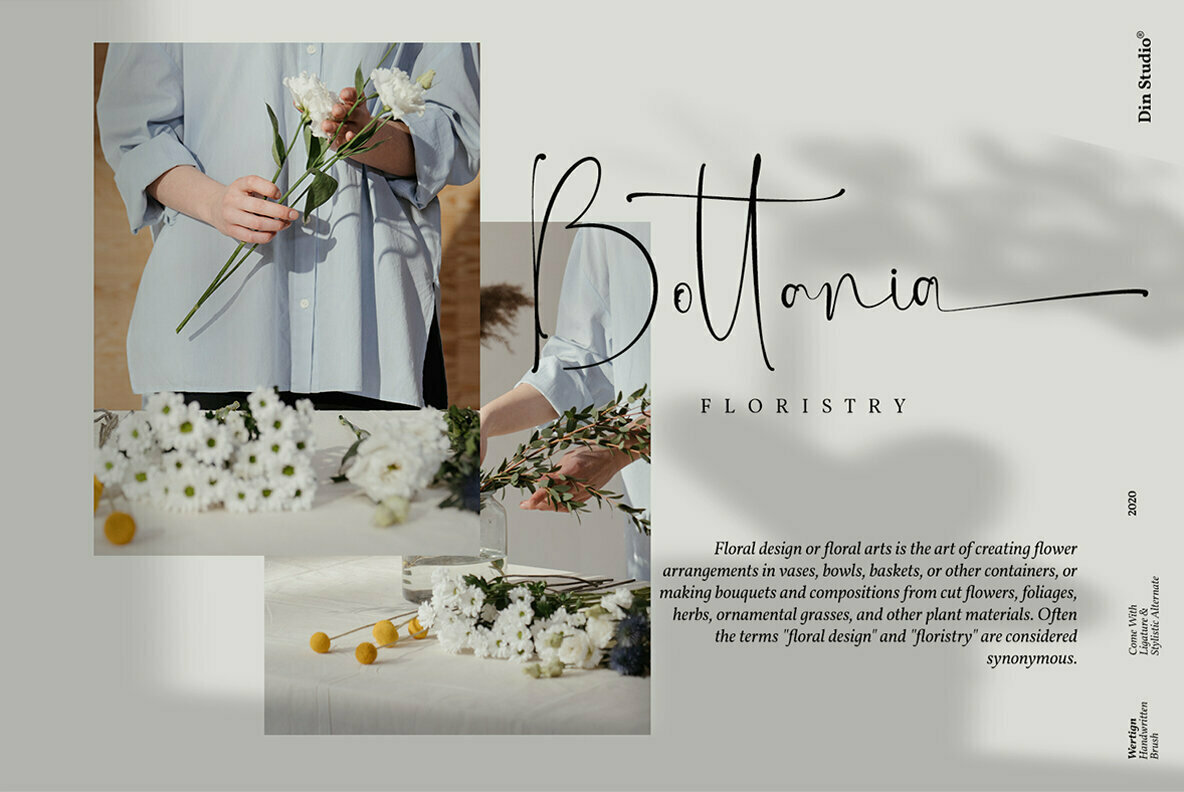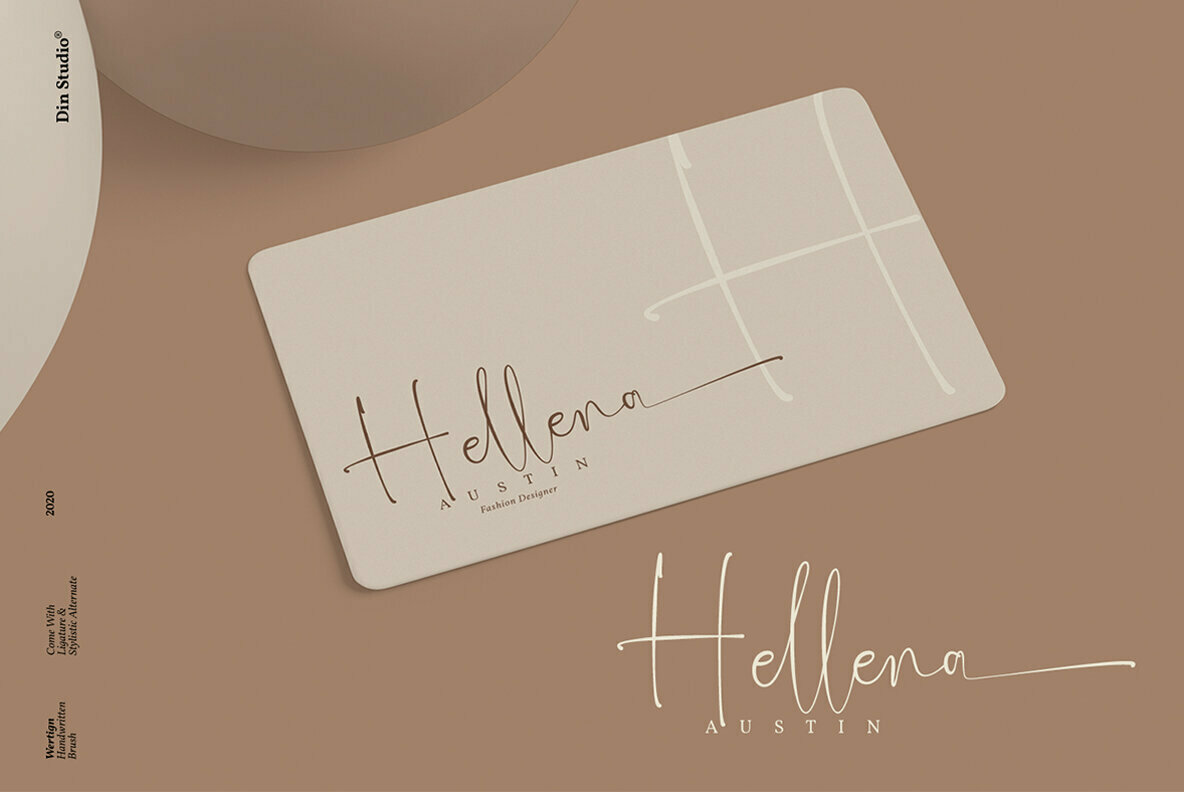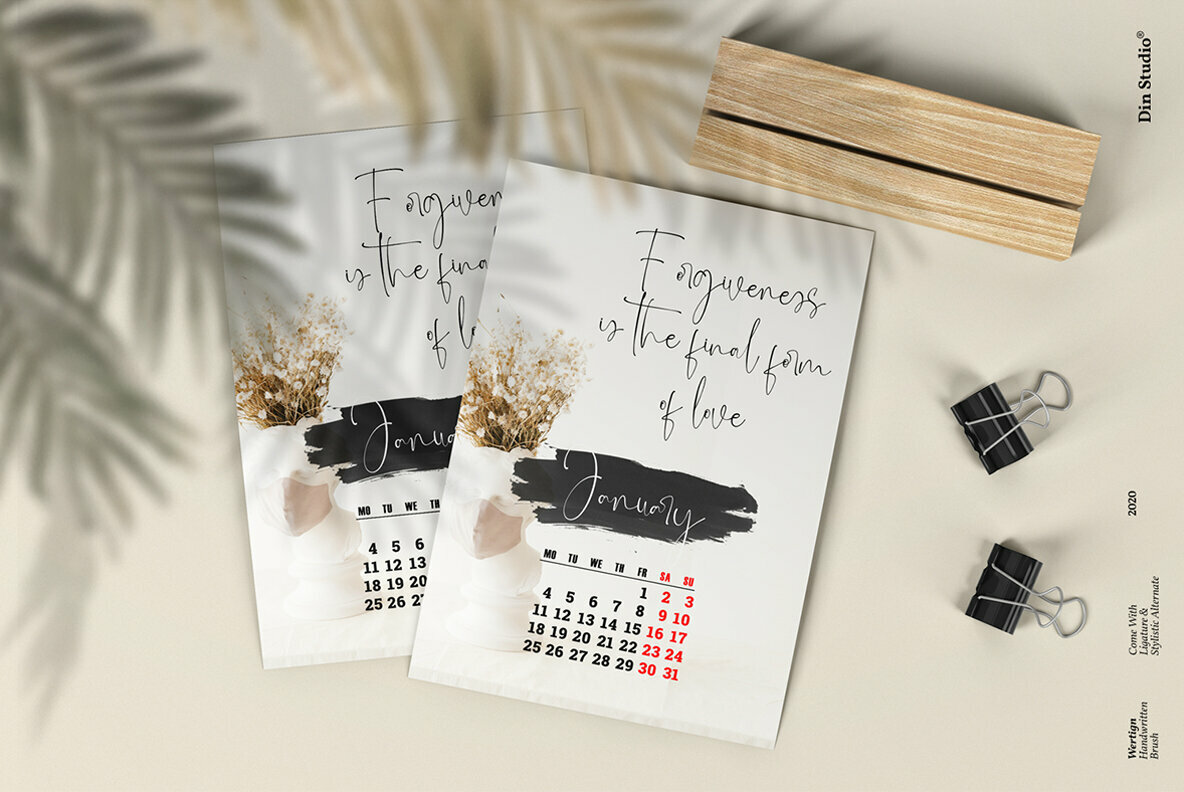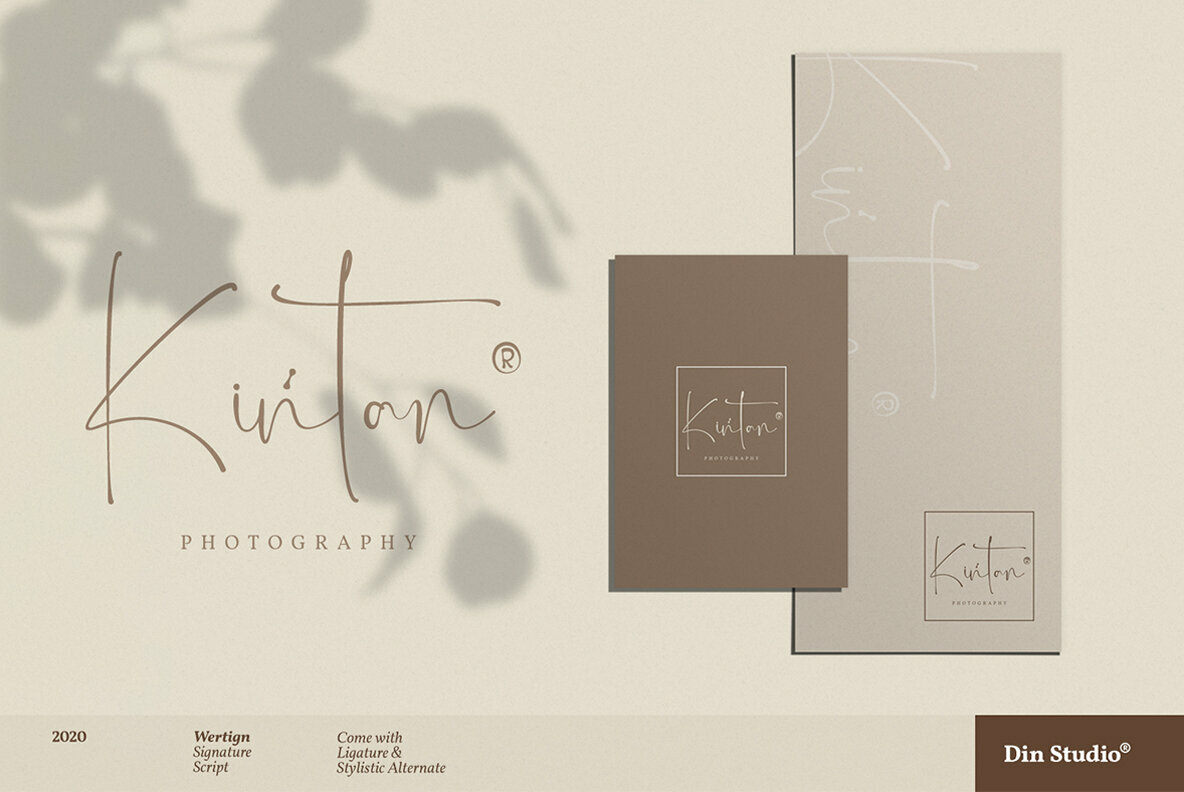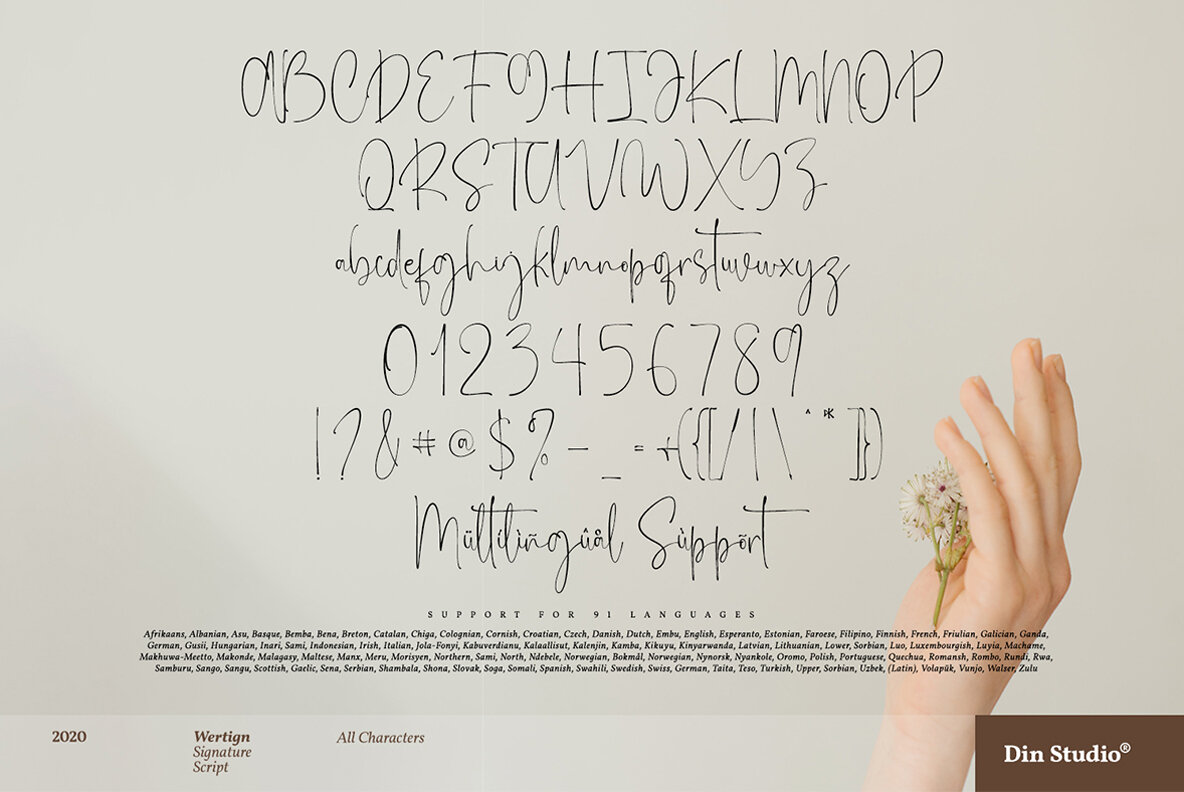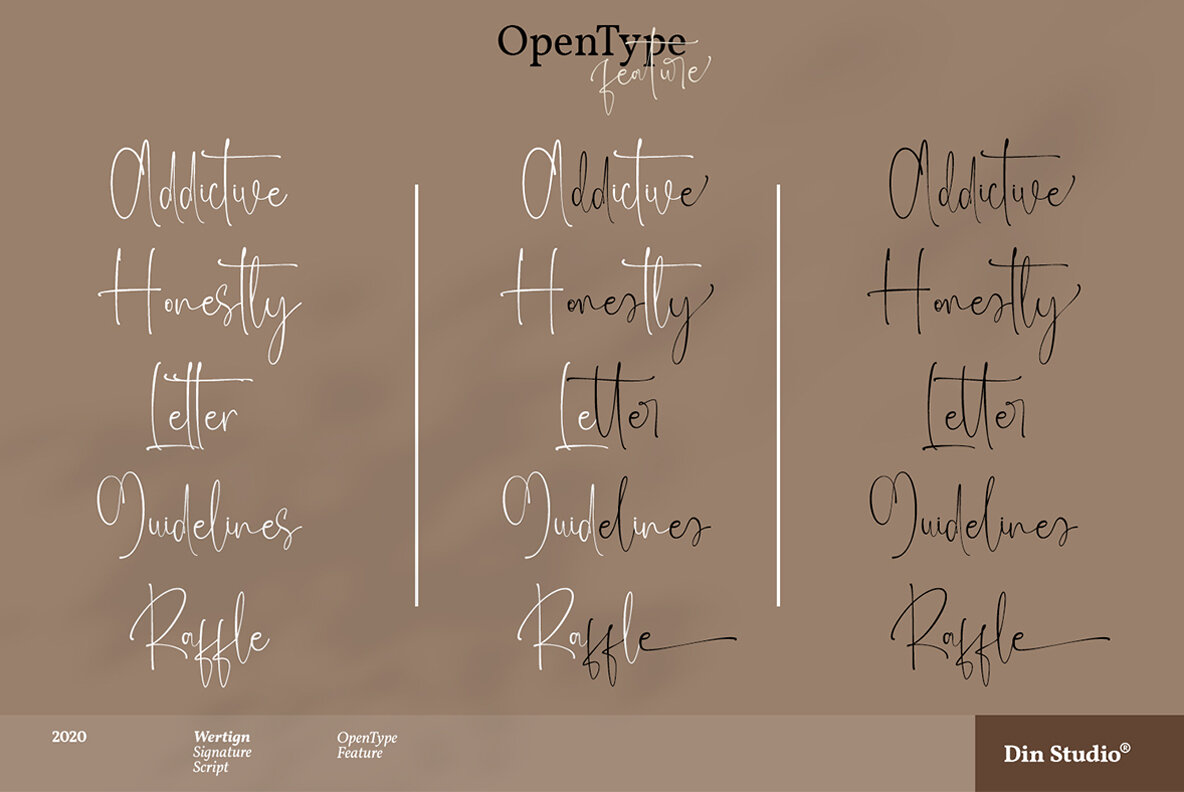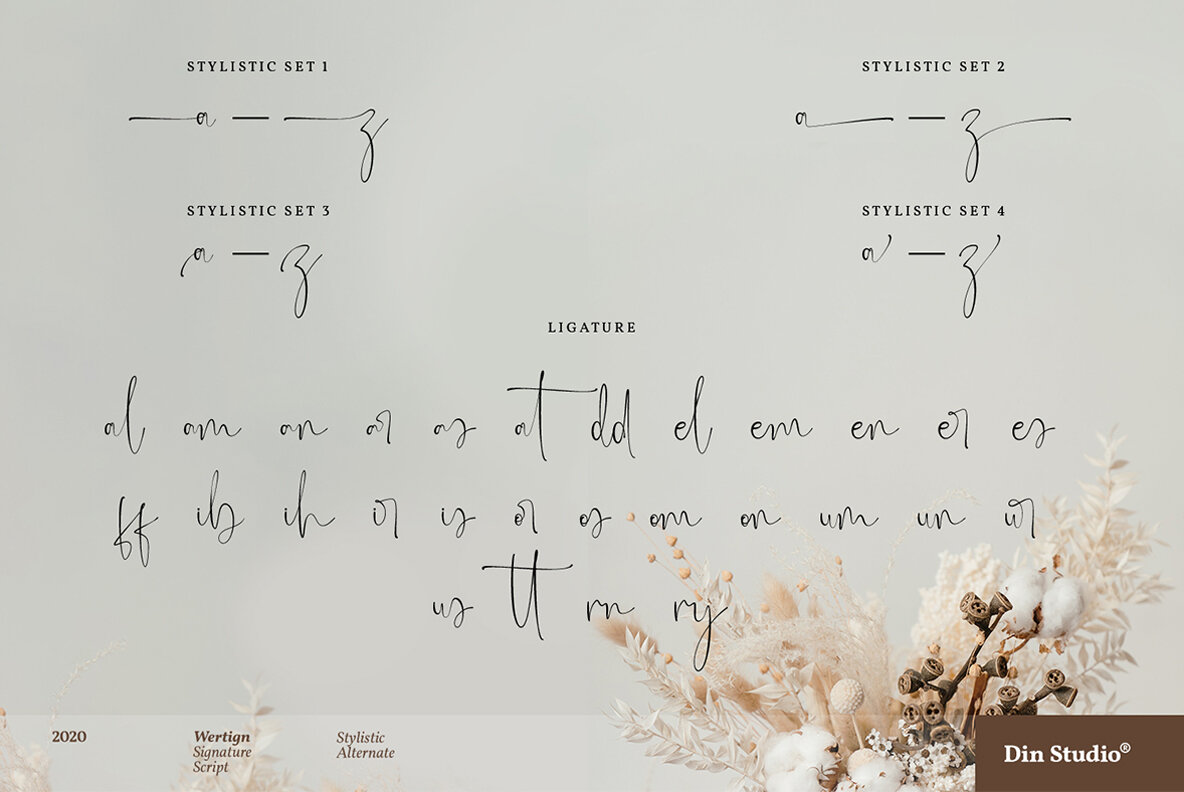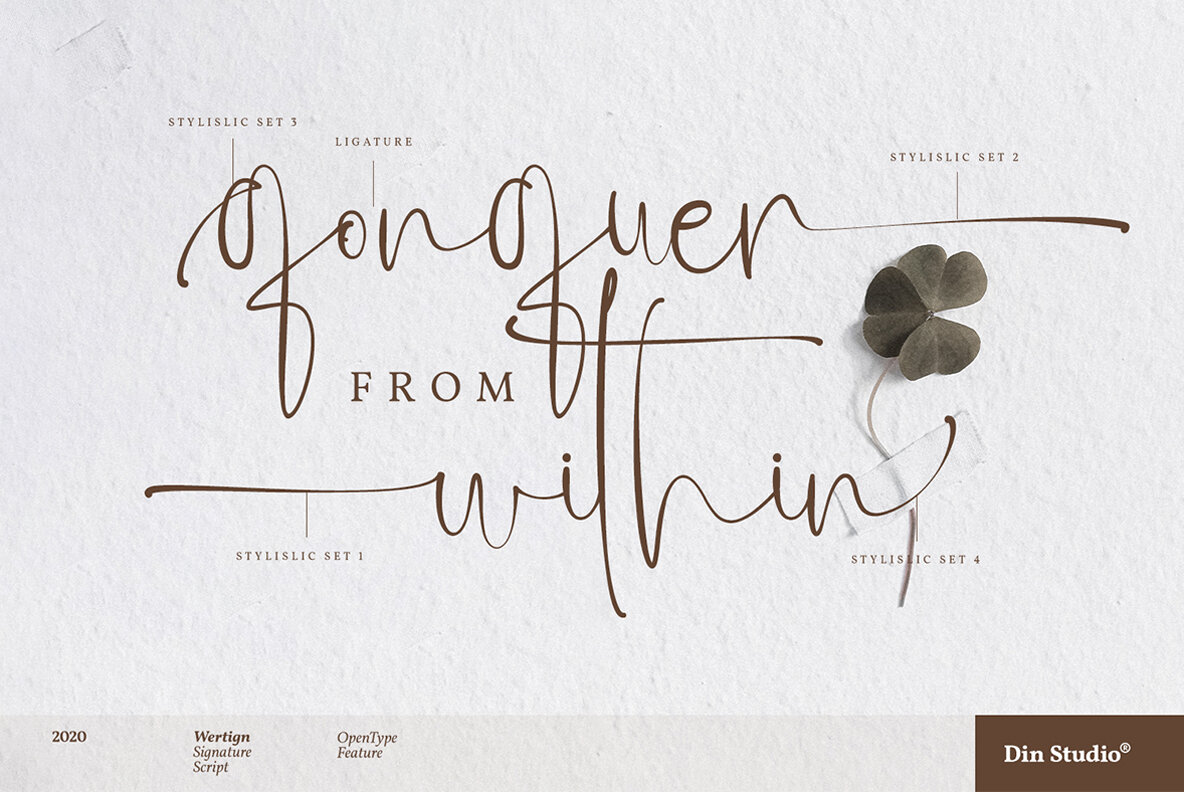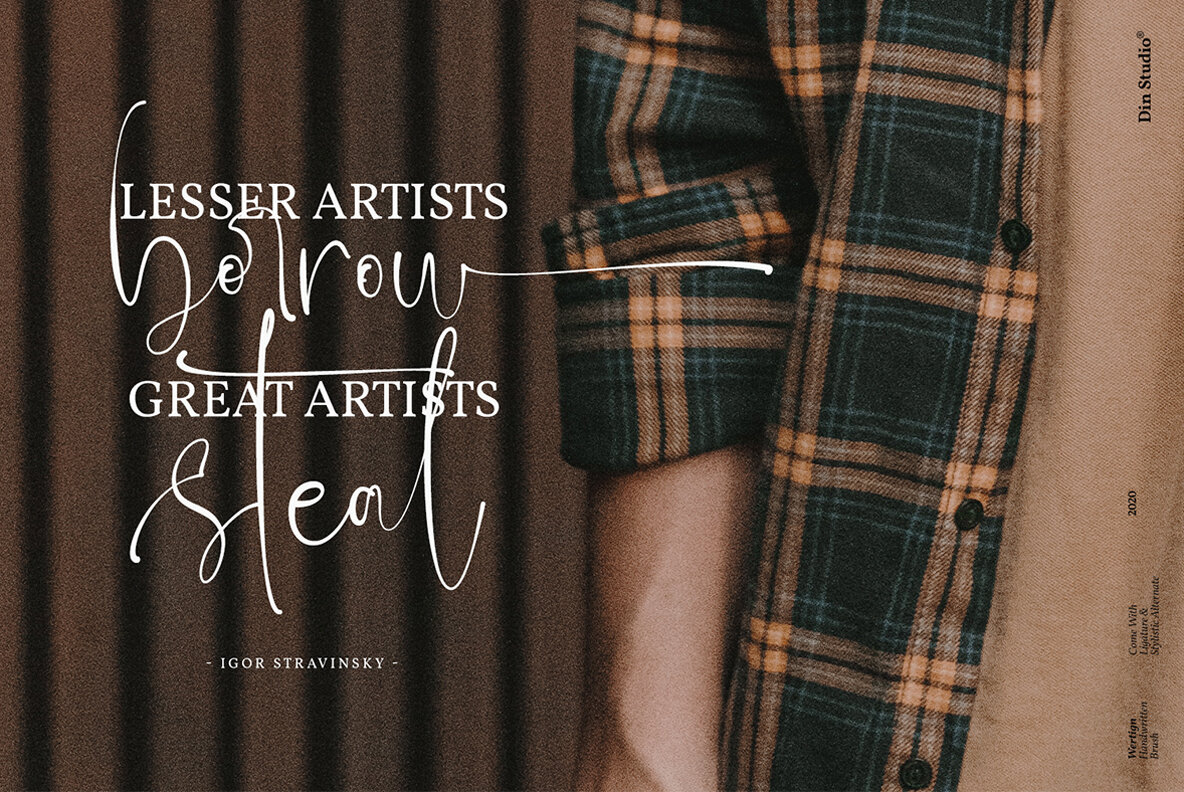
Wertign Font
Wertign
Wertign is a handmade signature font that encapsulates elegance and versatility, making it an excellent choice for a wide range of projects. From enhancing your website and social media presence to enriching Pinterest banners and printed materials, this typeface offers a tasteful solution that stands out.Wertign: Signature Font with Distinctive Elegance